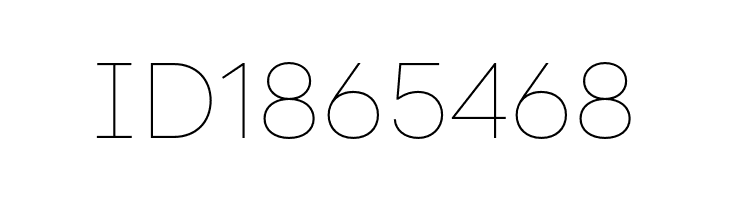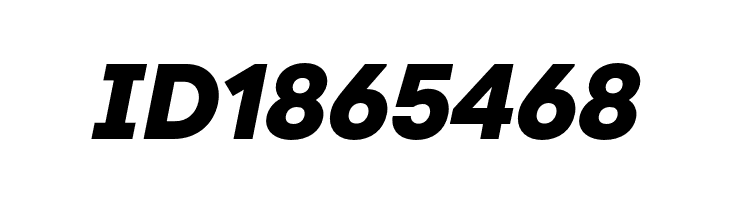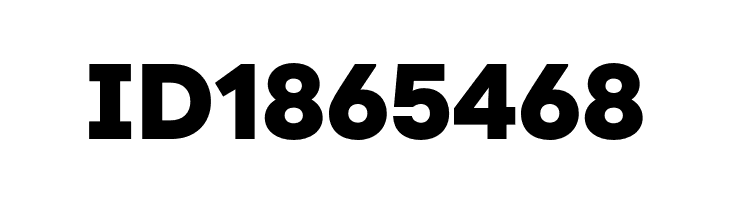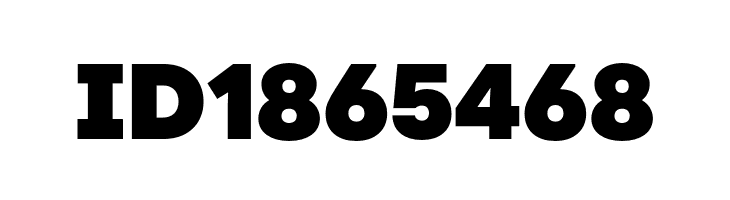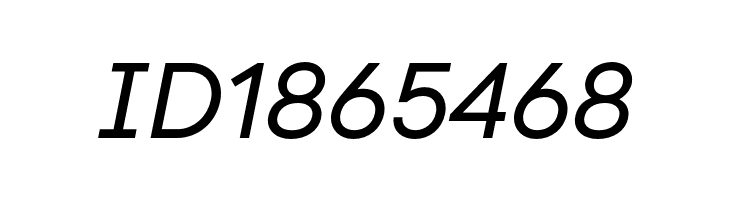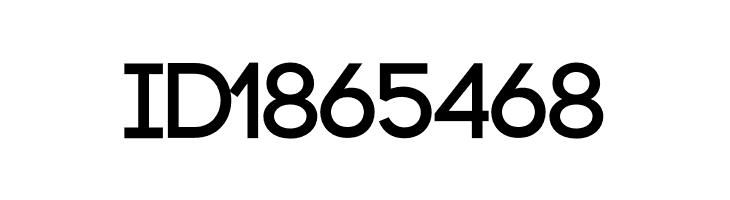
A bold, modern typeface with thick strokes and a clean, assertive style.
A bold, italic font with a dynamic and energetic style.
A sleek, minimalistic font with thin, uniform strokes and a modern, elegant style.
A bold, modern sans-serif font with strong, uniform strokes.
A modern, italic sans-serif font with a clean and dynamic style.
A modern, minimalist font with uniform stroke width and geometric influence.
A bold, modern sans-serif font with geometric precision and strong legibility.
A modern, bold, and italicized font with a sleek and dynamic appearance.
A bold, modern sans-serif font with clean, geometric letterforms.
A bold, modern sans-serif font with geometric shapes and balanced spacing.